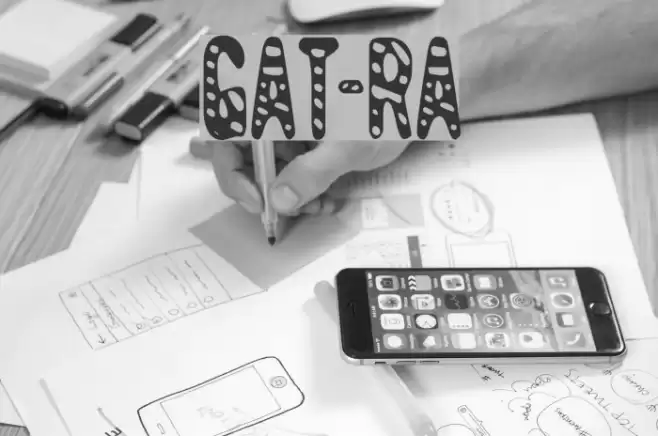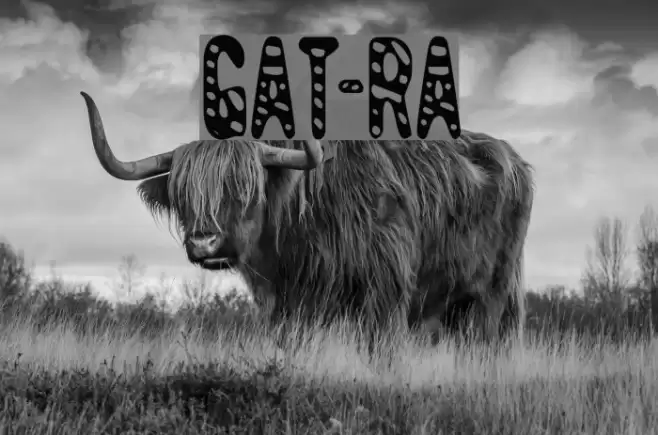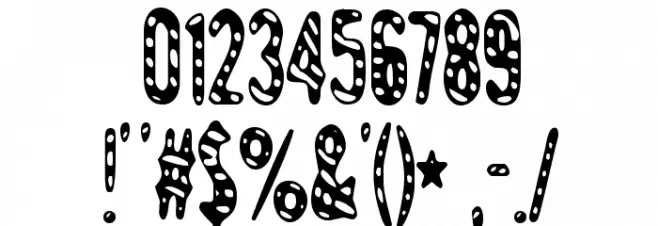
GiantTigers-Regular Font
GiantTigers-Regular Description
This font features a playful and bold design with a unique pattern of dots and cutouts within each character, giving it a lively and eye-catching appearance. The letters are uppercase and lowercase, with numbers and a variety of special characters included. The style is reminiscent of a decorative or display typeface, ideal for projects that require a fun and engaging look. The characters have a consistent weight, and the spacing is relatively normal, ensuring readability despite the intricate design. The font's high contrast between the filled and hollow areas adds to its dynamic and energetic feel.
A playful, bold font with dotted cutouts, perfect for decorative use from Uncategorized fonts.
- Proposed Projects: Ideal for children's books, party invitations, posters, and playful branding.